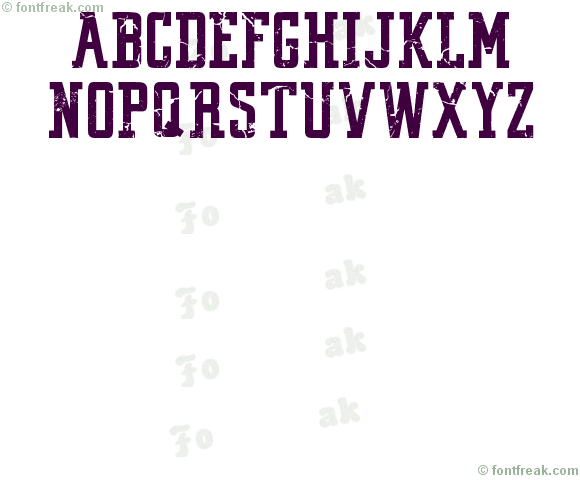
VINTAGE COLLEGE DEPT_DEMO_worn
About VINTAGE COLLEGE DEPT_DEMO_worn
Introducing the VINTAGE COLLEGE DEPT_DEMO_worn font, a striking display typeface by Fonts and Fashion that embodies a nostalgic charm perfect for various creative projects. This font features a bold, serif style with a slightly distressed appearance, giving it a classic, weathered look reminiscent of vintage college signage. The stroke weight is robust, providing a substantial presence, while the subtle contrast in the letterforms adds an appealing depth. The spacing between letters is thoughtfully designed to enhance legibility without sacrificing the font's character, making it an excellent choice for striking visual statements.
Ideal for a wide range of applications, the VINTAGE COLLEGE DEPT_DEMO_worn font shines in areas such as retro-themed event flyers, college reunion invitations, and sports team merchandise. Its rugged aesthetic is also well-suited for use on restaurant menus that aim for a casual yet inviting atmosphere, as well as in branding for businesses that want to evoke a sense of tradition and reliability. Graphic designers, small business owners, and content creators looking to add a touch of vintage flair to their projects will find this font particularly appealing.
What truly sets the VINTAGE COLLEGE DEPT_DEMO_worn font apart is its ability to evoke nostalgia while remaining versatile. Its unique design can complement modern layouts, bridging the gap between past and present. As a freeware option, it opens the door for all creatives to explore its potential without financial constraints. For those seeking a distinctive typeface with character, the VINTAGE COLLEGE DEPT_DEMO_worn font free download is an excellent choice that promises to elevate any design project.